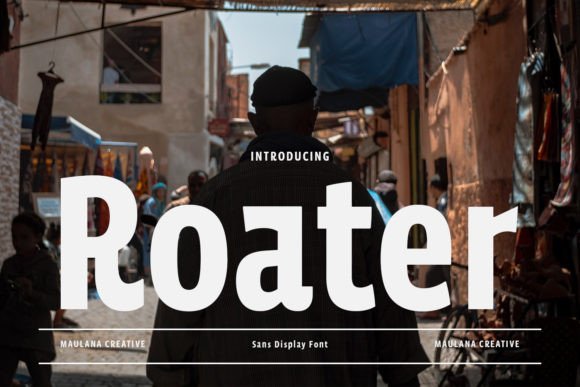
Introducing Roater Font, an exceptional sans-serif font that seamlessly blends elegance and modernity. Its clean and minimalist vibe adds a touch of sophistication to any design project, inviting you to explore endless creative possibilities.
With Roater Font, your words become art. Its sharp and defined letterforms bring a sense of clarity and precision to your designs, ensuring legibility and impact. Whether crafting eye-catching book covers or captivating social media posts, Roater Font empowers you to deliver a lasting impression.
Step into a world of versatility with Roater Font. Its adaptability shines in a multitude of design applications, from sleek magazine layouts to enchanting invitations. Bring life to your artistic vision with Roater Font, the perfect choice for designers seeking a timeless and versatile font.
Immerse yourself in the beauty of German typography with Roater Font. Its carefully crafted characters capture the essence of the German language, enhancing the readability and aesthetics of your designs. Embrace the cultural heritage of Germany and create designs that resonate with audiences worldwide.
Roater Font is more than just a font; it's an invitation to unleash your creativity and explore new horizons. Its elegant curves and sharp edges inspire a sense of wonder and intrigue, urging you to push the boundaries of design. Discover the limitless potential of Roater Font and transform your creative dreams into reality.